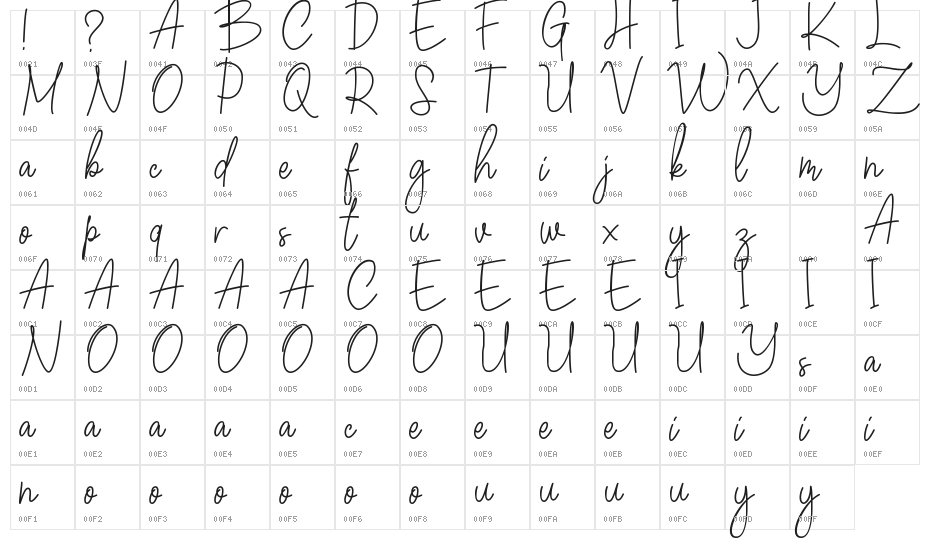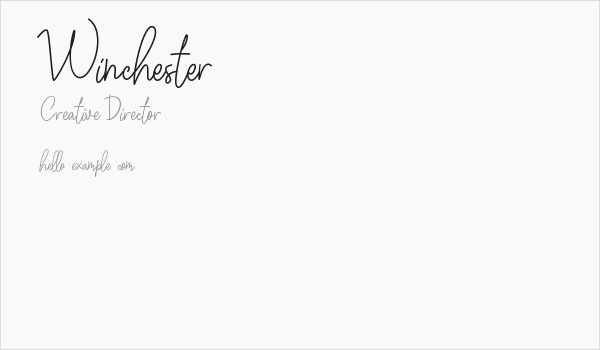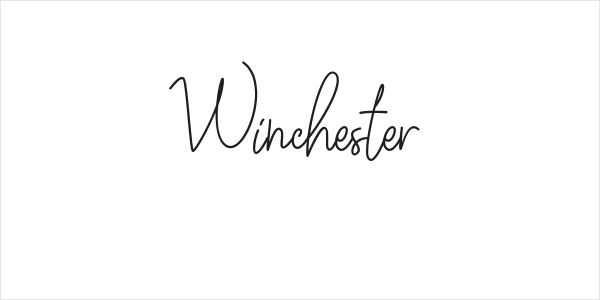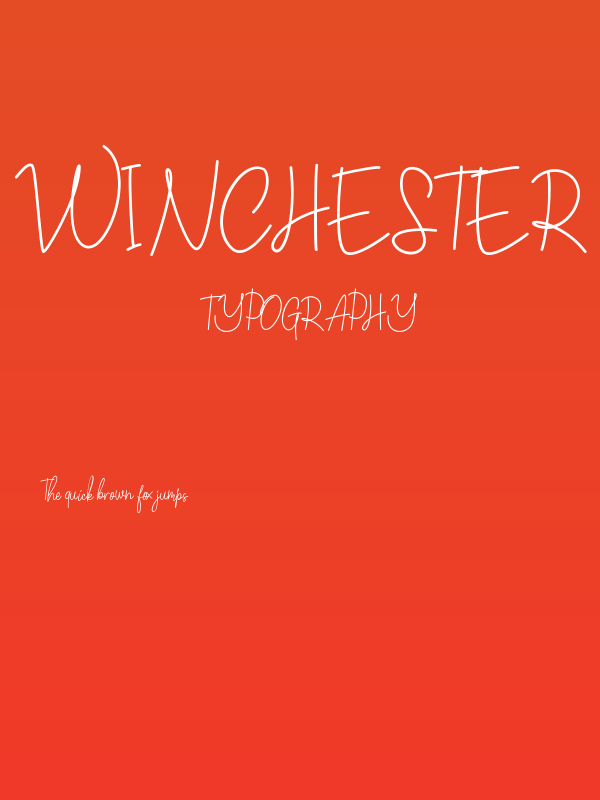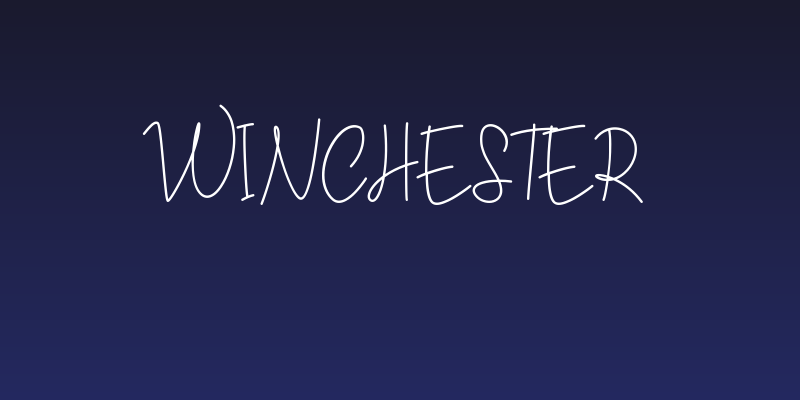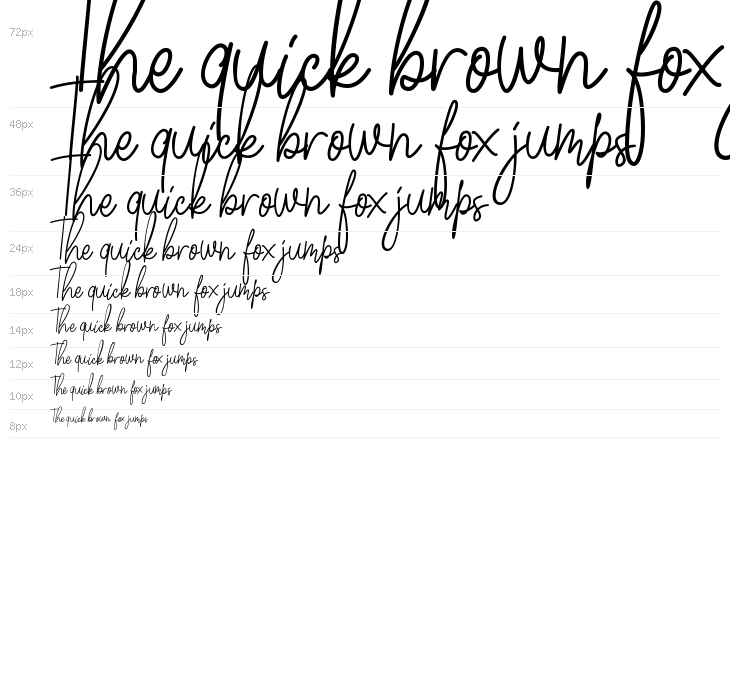
Winchester Font
Winchester Description
This font features a distinctive handwritten style, characterized by its flowing, cursive letters that convey a sense of elegance and personal touch. The uppercase letters are tall and slender, with a slight slant that adds to the dynamic feel of the text. The lowercase letters are more fluid, with loops and curves that enhance the handwritten aesthetic. The font maintains a consistent stroke width throughout, giving it a uniform appearance despite its freeform style. The characters are well-spaced, allowing for readability while retaining the artistic flair typical of script fonts. This font is ideal for projects that require a personal, human touch, such as invitations, greeting cards, or branding materials that aim to convey warmth and approachability.
| Proposed Projects | Ideal for invitations, greeting cards, personal branding, and artistic projects. |